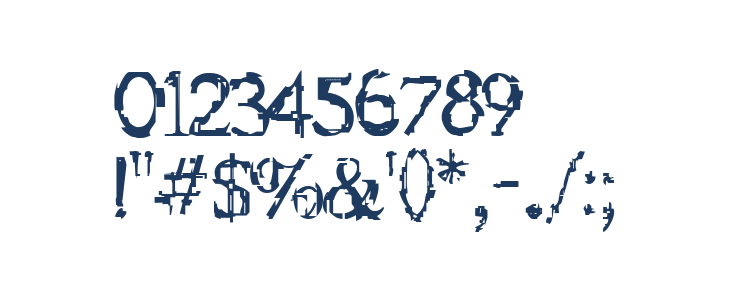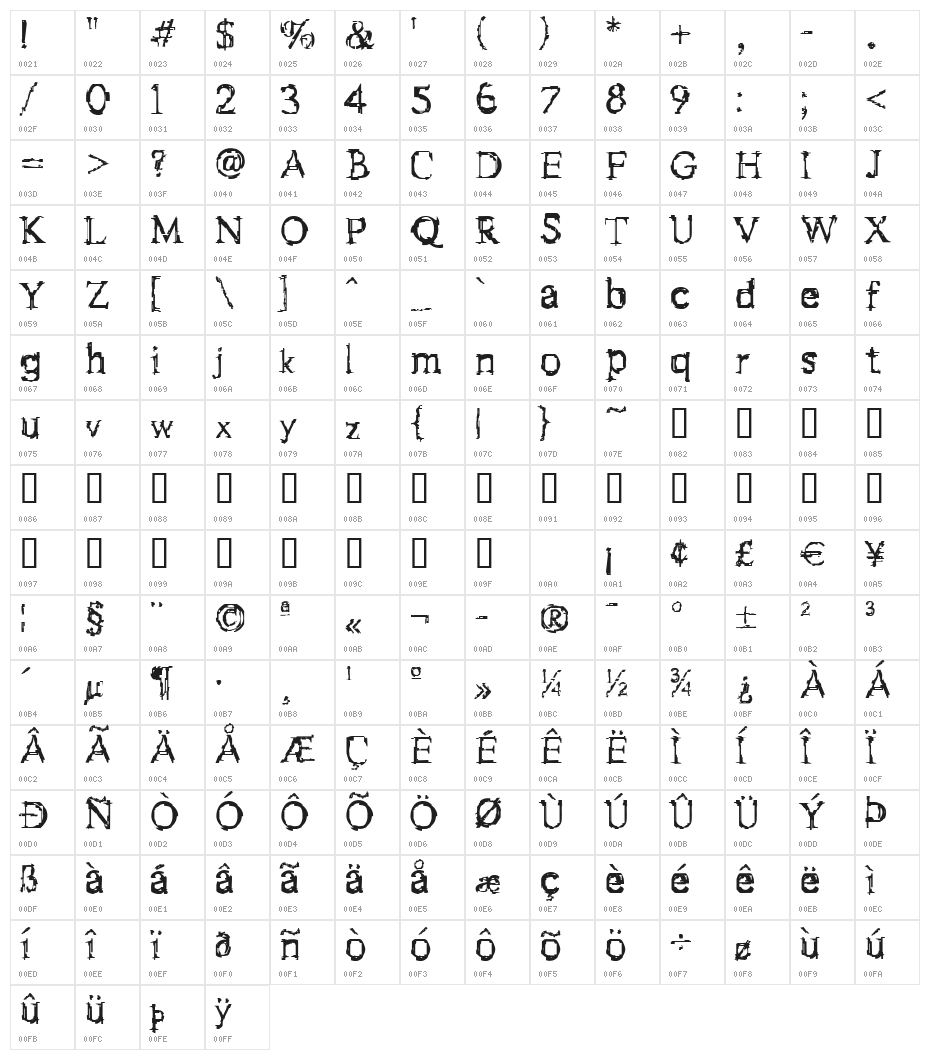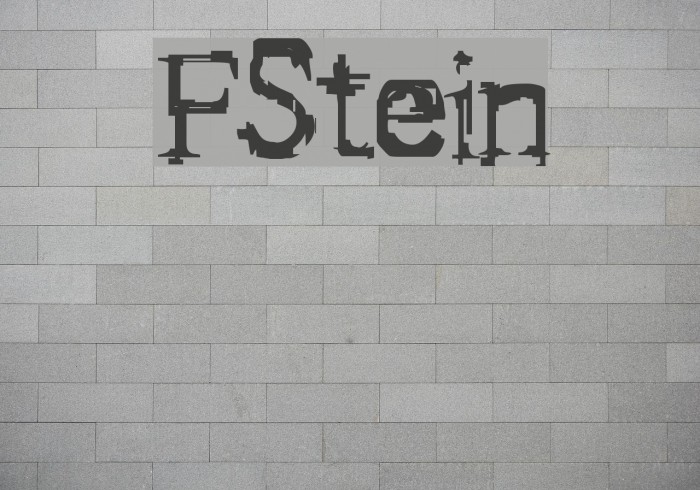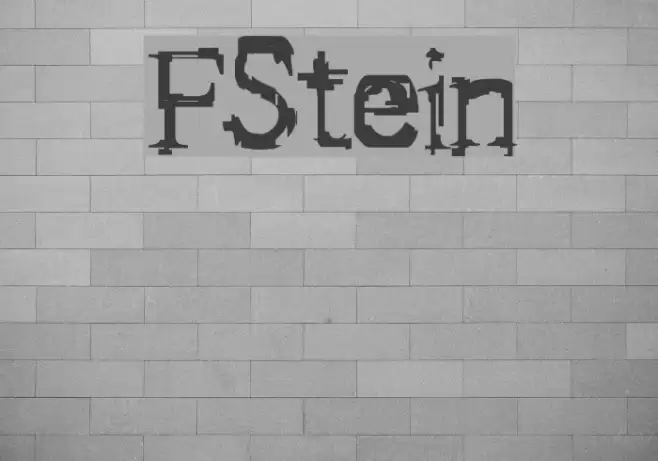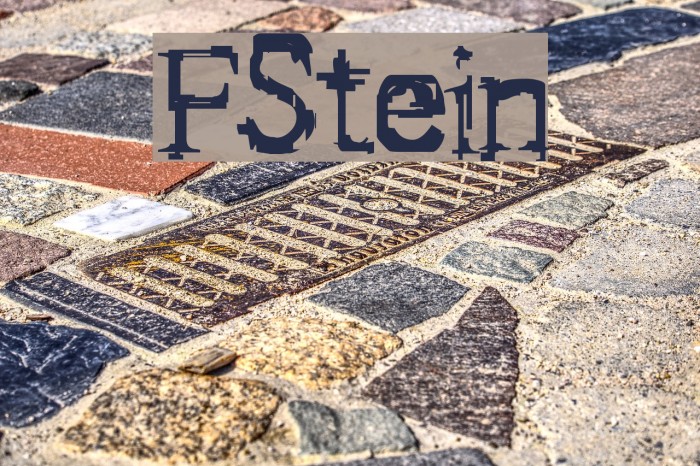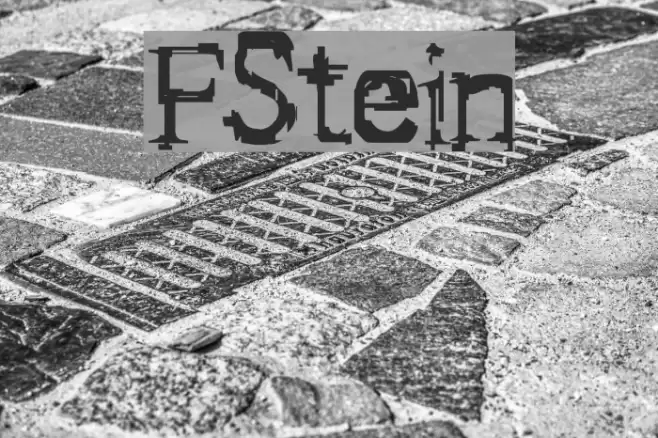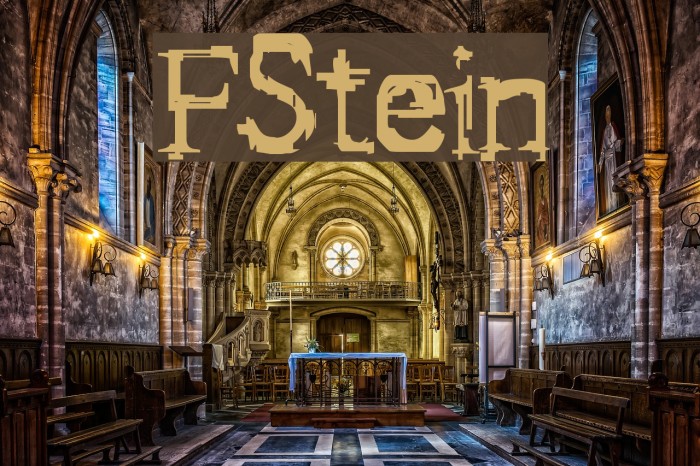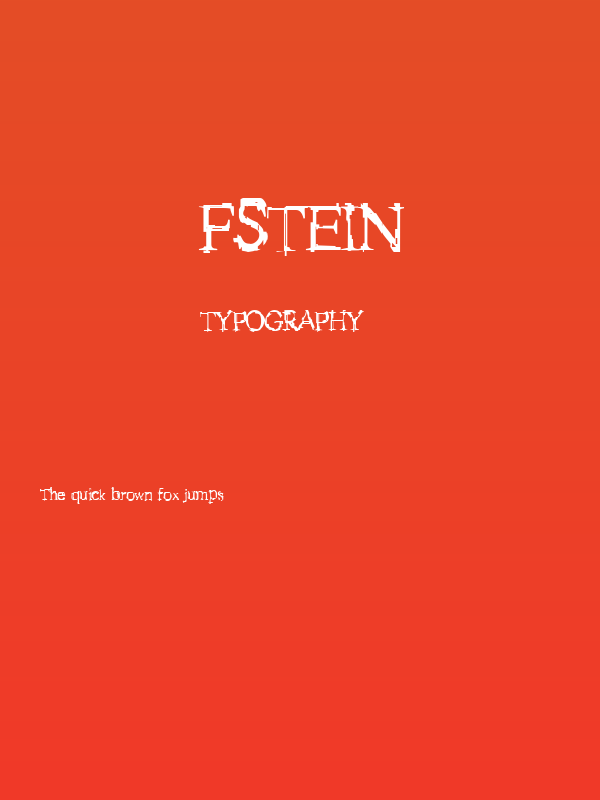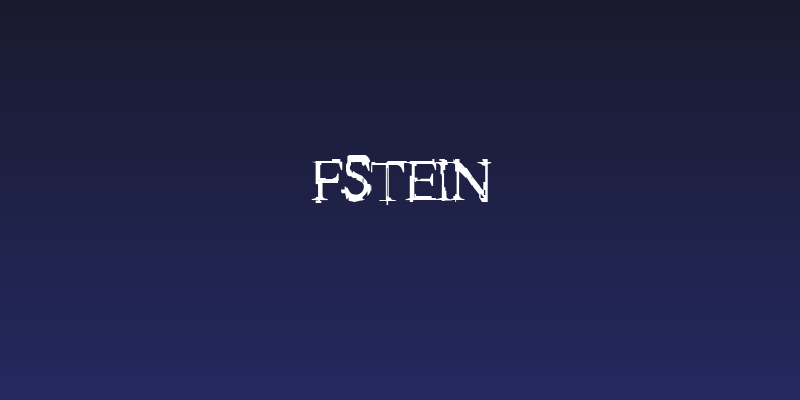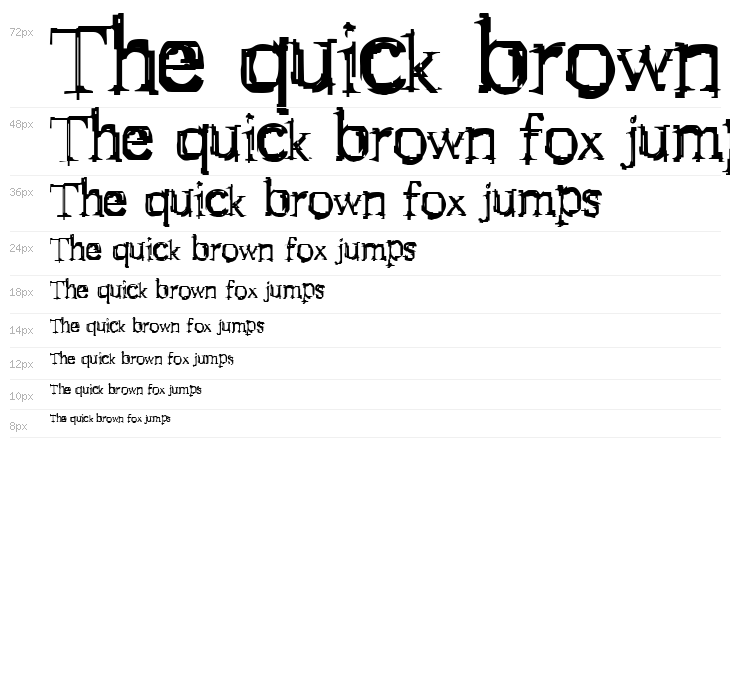
FStein Font
FStein Description
This font features a distressed, grunge aesthetic with irregular edges and a rough texture, giving it a unique, edgy appearance. The uppercase and lowercase letters maintain a consistent height, while the numerals and special characters follow the same rugged style. The font's design is reminiscent of a hand-drawn or stamped look, with uneven lines and a slightly chaotic feel. This style is perfect for projects that require a bold, unconventional look, such as music album covers, posters, or themed event invitations. Its distinctive character makes it stand out in any design, adding a touch of rebellious flair.
| Overall Style | Grunge, Edgy, Distressed |
| Proposed Projects | Ideal for music album covers, posters, themed event invitations, and edgy branding. |